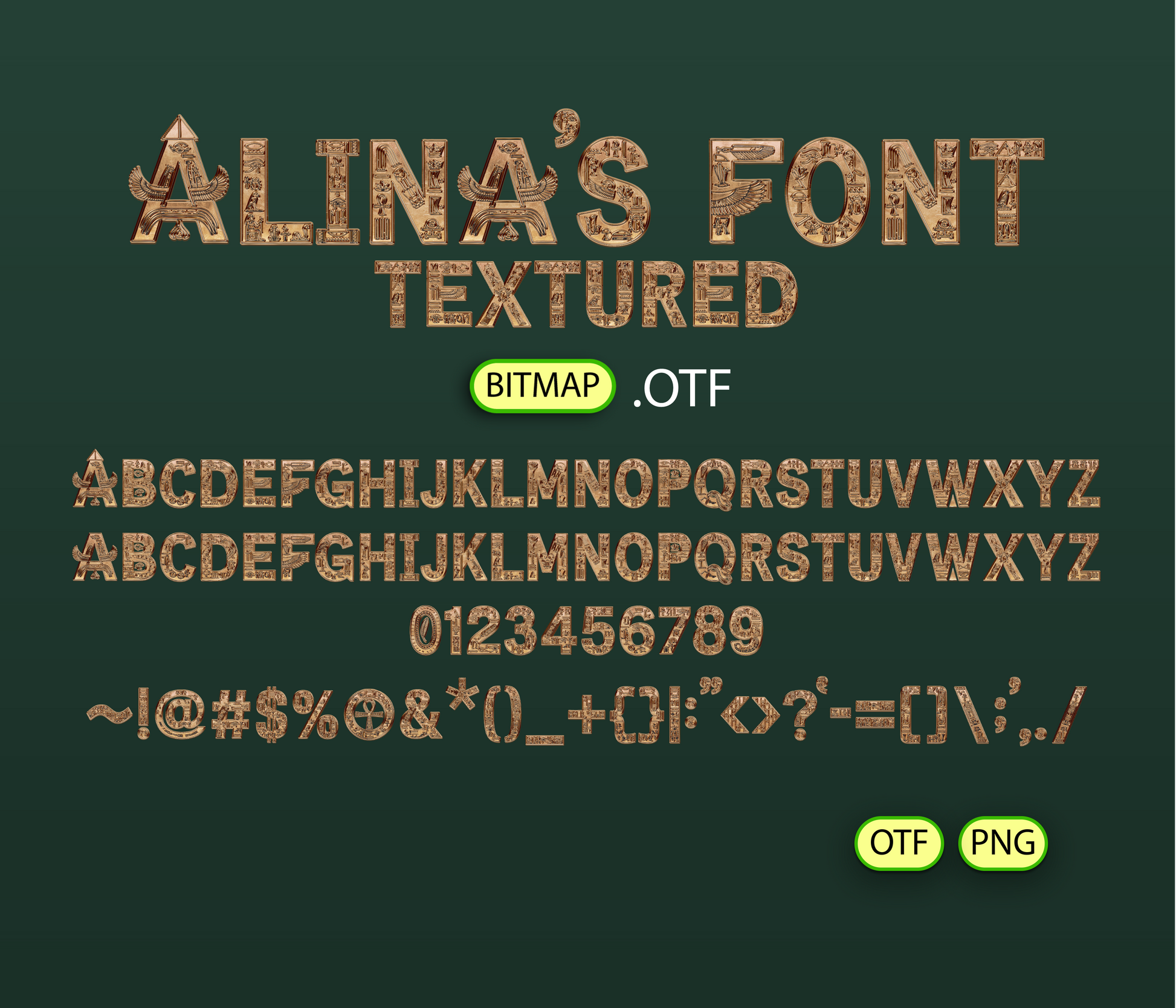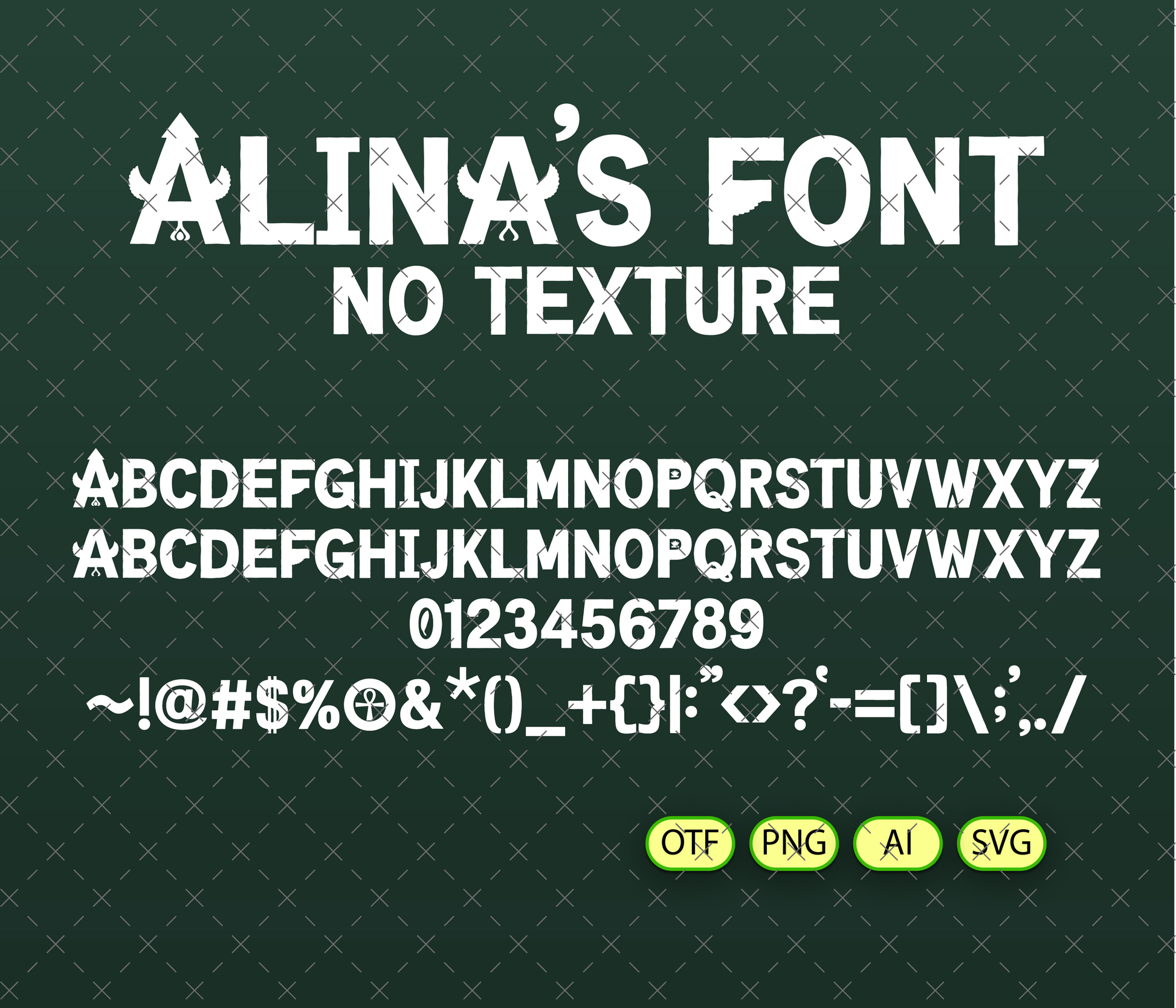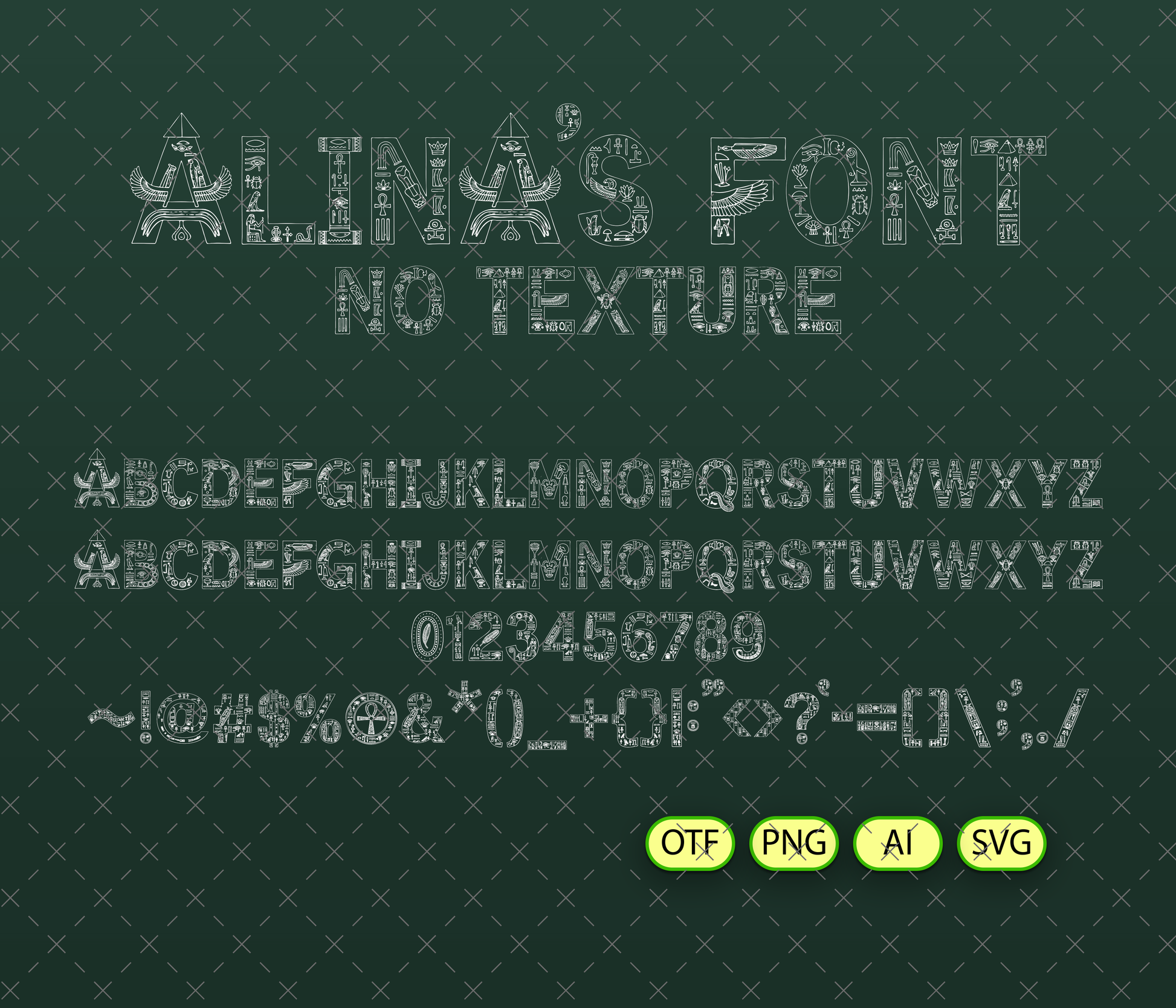
Desert Warrior Font Textured
Step into the legendary world of Saharan conquest with our Desert Warrior Font Textured, capturing the essence of battle-worn glory and sand-swept empire mystique. Perfect for history enthusiasts, themed event planners, content creators, and creative professionals, this font brings the bold, timeless spirit of ancient tribal stories to your projects. Create eye-catching invitations, merchandise, or digital content with the dramatic energy of forgotten empire narratives.
Bold Typography for Historical Design & Cultural Projects
Our Desert Warrior Font Textured features dramatic, stylized letterforms with weathered stone textures reflecting the world of nomadic dynasties and ancient fortress settings.
- Event Promotions: Create eye-catching invitations, posters, and banners for museum events, history conventions, and gatherings that capture the spirit of ancient civilization entertainment
- Merchandise Design: Perfect for t-shirts, posters, stickers, and accessories that showcase the bold aesthetic of warrior culture themes
- Digital Media: Enhance websites, blogs, and social media with majestic headers and graphics that express the mystery of lost empires
- Creative Content: Add authentic flair to historical art, educational designs, and creative projects inspired by Saharan conquest tales
- Personal Projects: Bring ancient energy to scrapbooking, DIY crafts, and home decor inspired by the world of legendary tribal characters
Many seek an online font generator to mimic the look of the Desert Warrior Font. Steer clear! No generator can match the quality of our font, which comes in a clean outline version perfect for cutting machines.
Our font pays tribute to the world of ancient civilization stories and forgotten conquest, empowering your projects with its bold and timeless spirit. Whether crafting educational materials, designing themed products, or adding a historical touch to personal projects, this font communicates the vibrant essence of warrior entertainment. Ready to inject ancient mystique into your creations? This font is your key to eye-catching, impactful design.